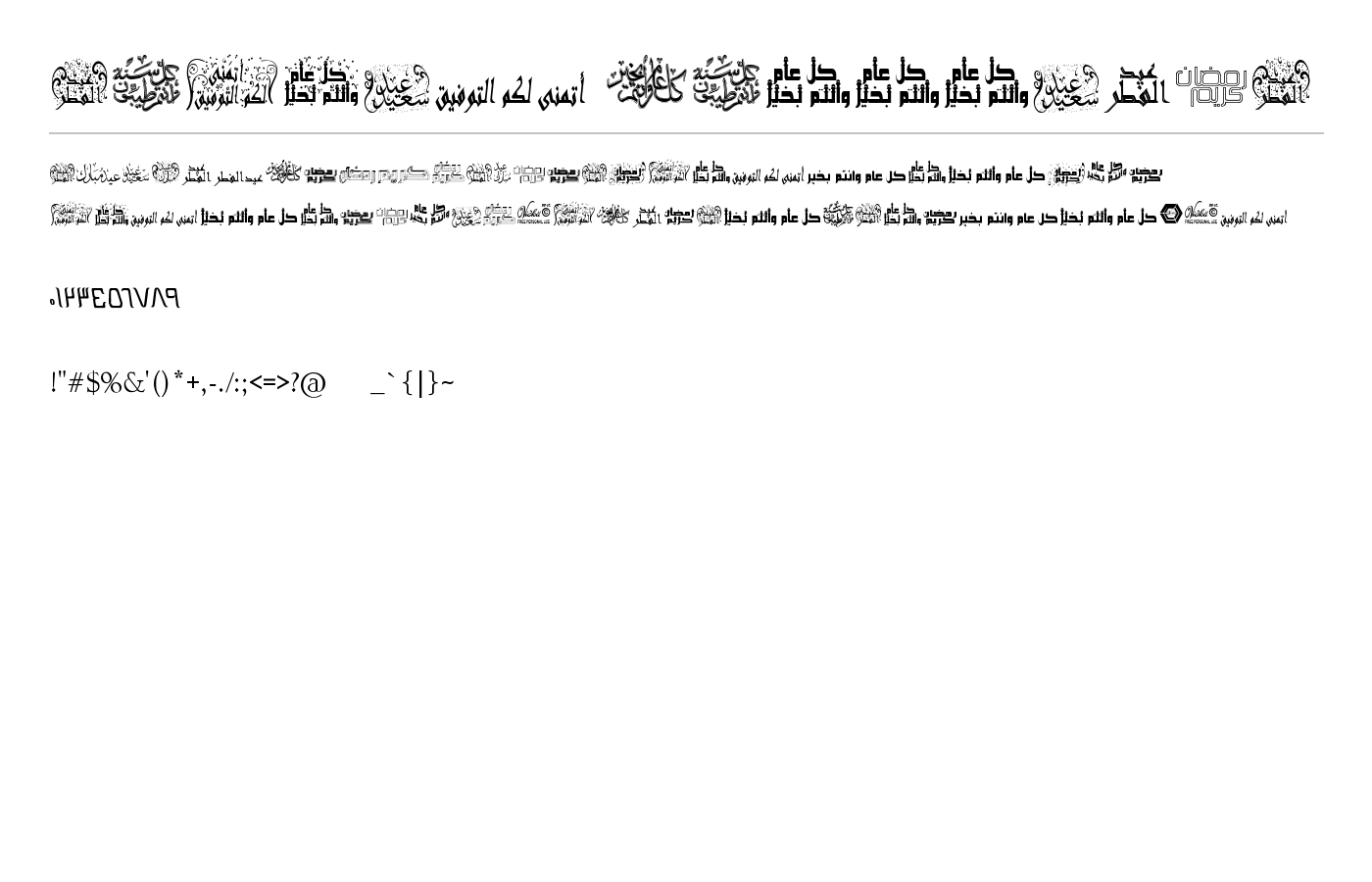
Arabic Greetings Font is a decorative Arabic typeface featuring elegant, intricate calligraphic strokes with a high contrast between thick and thin lines. It combines traditional ornamental flourishes with a refined, formal style that suits festive and cultural themes, making it ideal for greeting cards, invitations, and special occasion branding. This font brings a sophisticated, celebratory feel to designs requiring a luxurious and authentic Arabic aesthetic.
Arabic Greetings Font
About Arabic Greetings Font